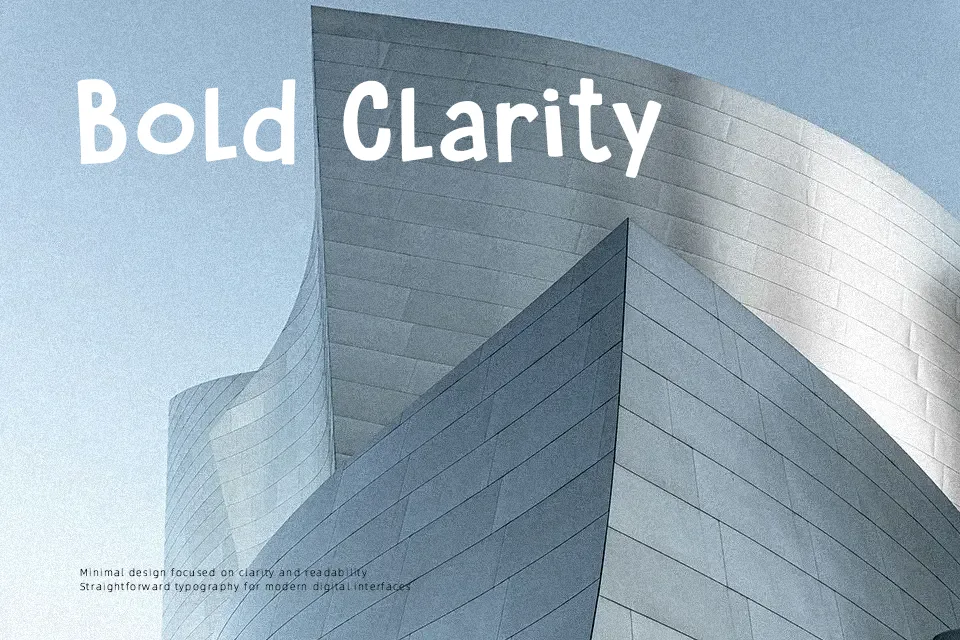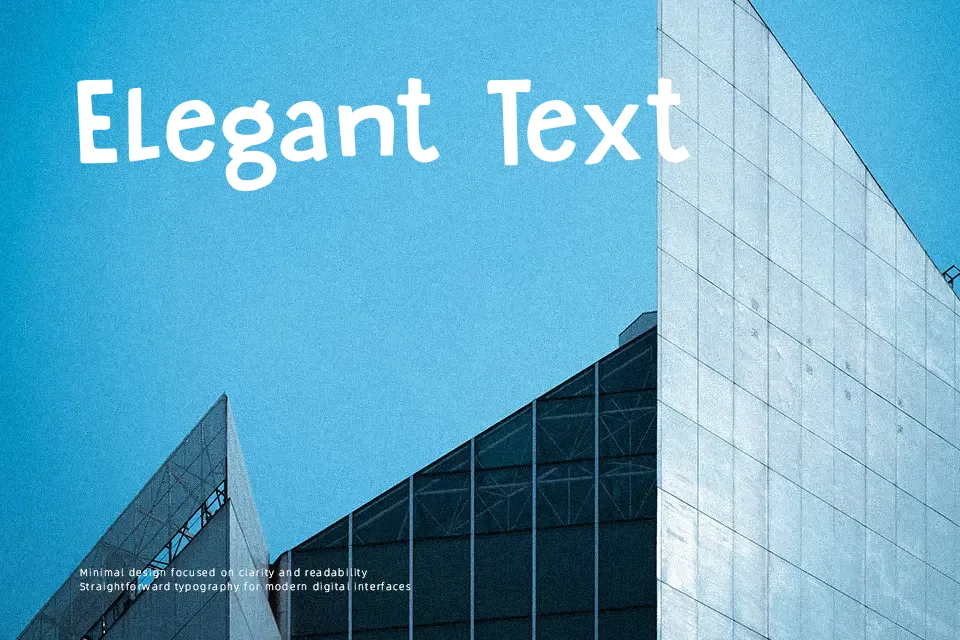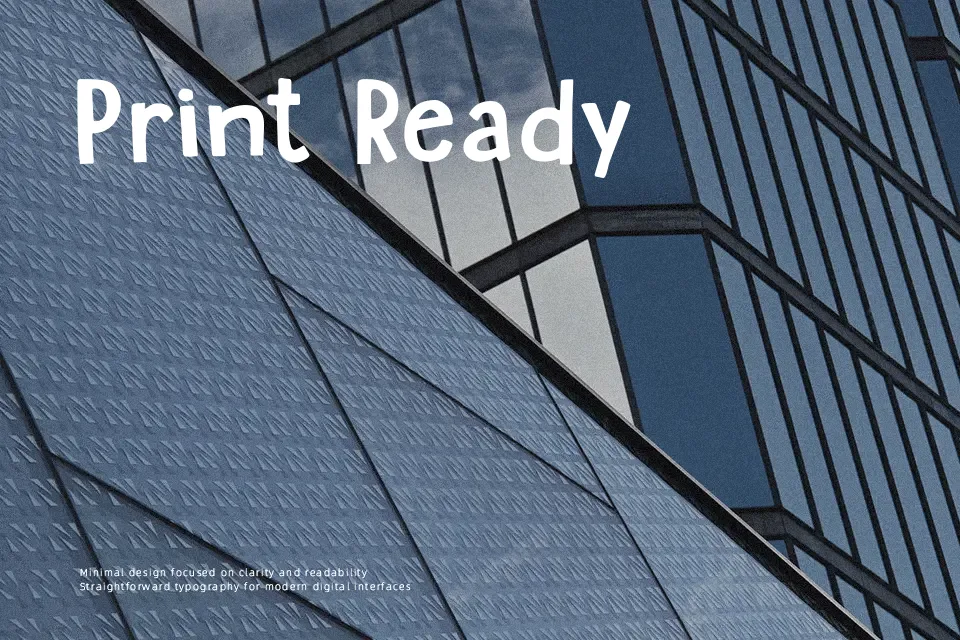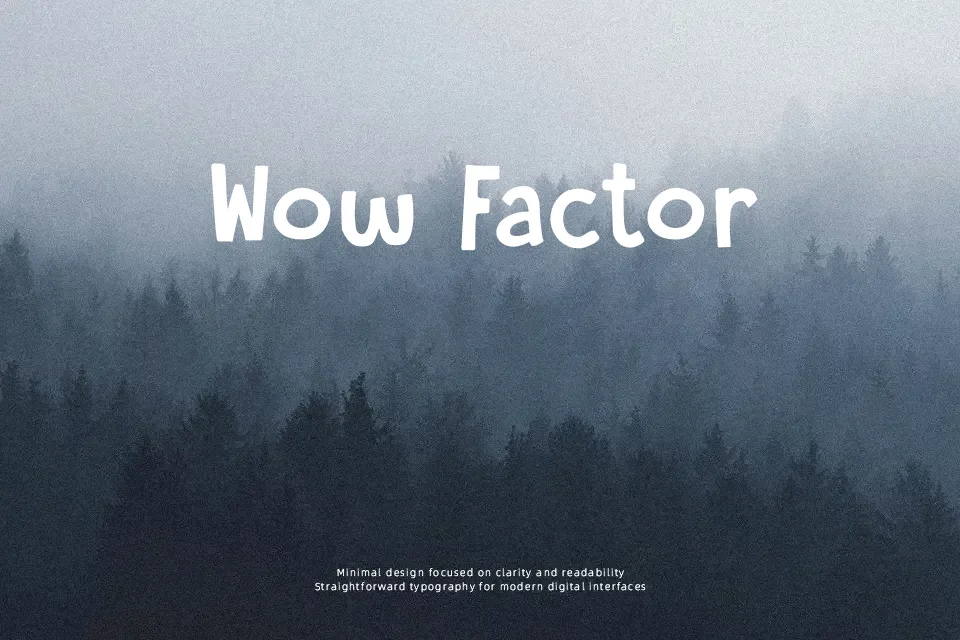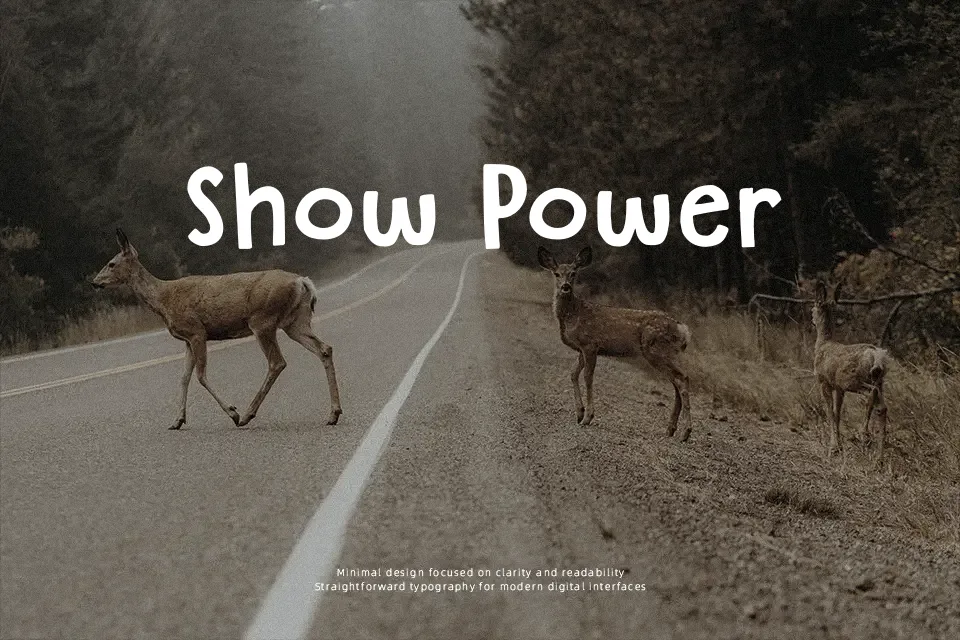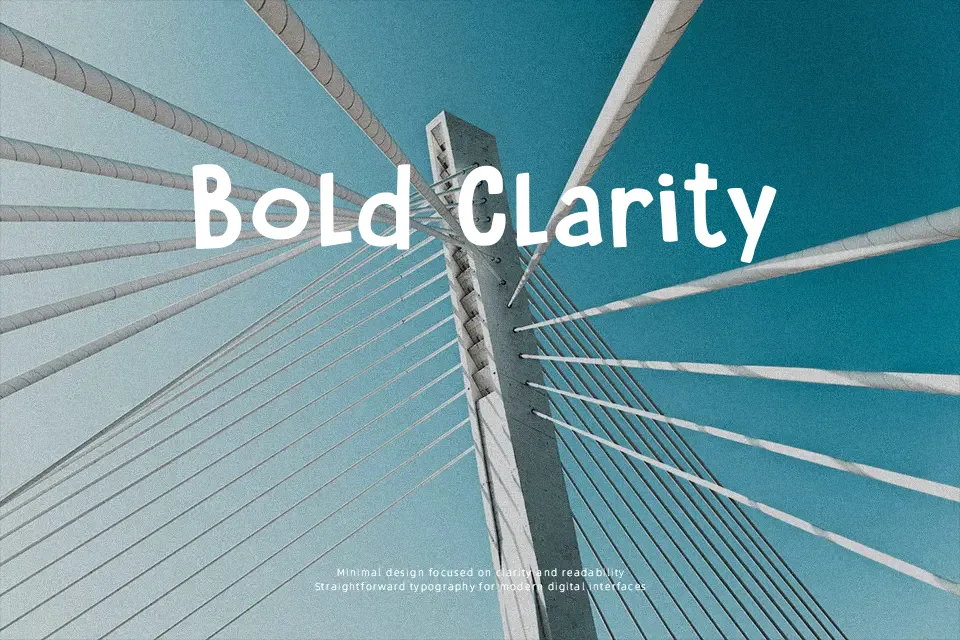
DK Sugary Pancake Font
Designed by Hanoded
DK Sugary Pancake Font has a chunky, hand-drawn structure with rounded terminals, steady stroke weight, and open shapes that keep it readable even at larger sizes. The letters bounce a little without falling apart, so it feels playful rather than messy. It works nicely on children’s book covers, classroom posters, snack packaging, and cheerful social graphics where warmth matters more than polish. What I like most is that it stays friendly without becoming hard to read. That said, the sugary personality is strong, so it can feel too loud for branding that needs restraint, and it is not a smart pick for body copy or formal editorial work.
children’s book covers
classroom posters
snack packaging
playful social graphics
body text
formal branding
serious editorial layouts
luxury packaging